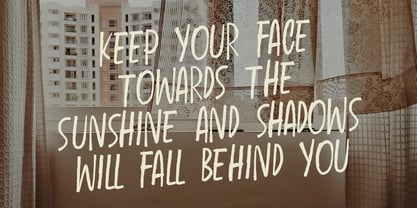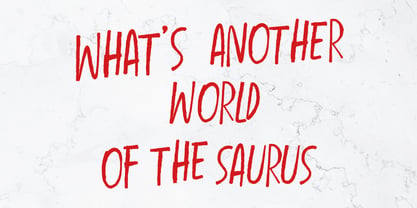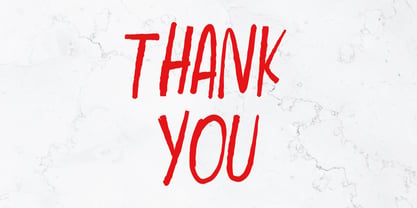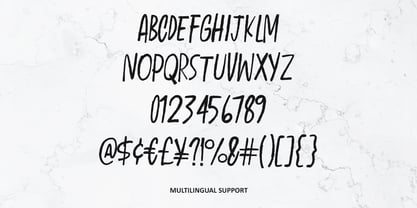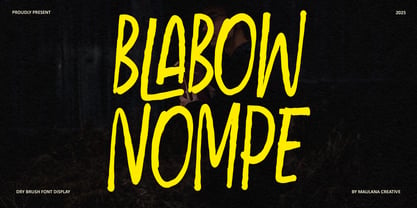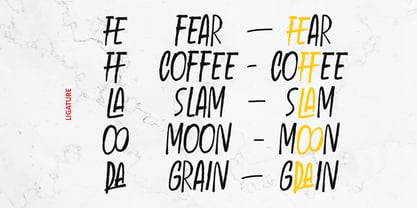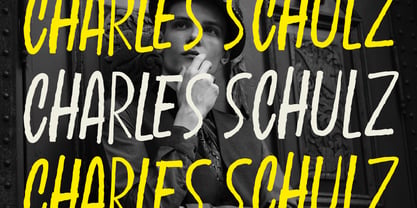
MC Blabow Nompe
by Maulana Creative
The MC Blabow Nompe Font Family was designed by Gilang Maulana and published by Maulana Creative. MC Blabow Nompe contains 1 styles. More about this family
Blabow Nompe is a bold dry brush display font with a raw, handcrafted feel. Its rough strokes and natural brush textures create an energetic and eye-catching look, perfect for designs that need intensity and personality. This font is ideal for posters, headlines, album covers, streetwear branding, social media graphics, and creative projects that demand a striking, artistic touch.
Blabow Nompe comes with uppercase, numerals, punctuation, ligatures, and multilingual support, making it versatile for both digital and print designs. Whether you want to create a bold statement or add a hand-painted vibe to your work, this font will make your designs stand out.
Designers: Gilang Maulana
Foundry: Maulana Creative